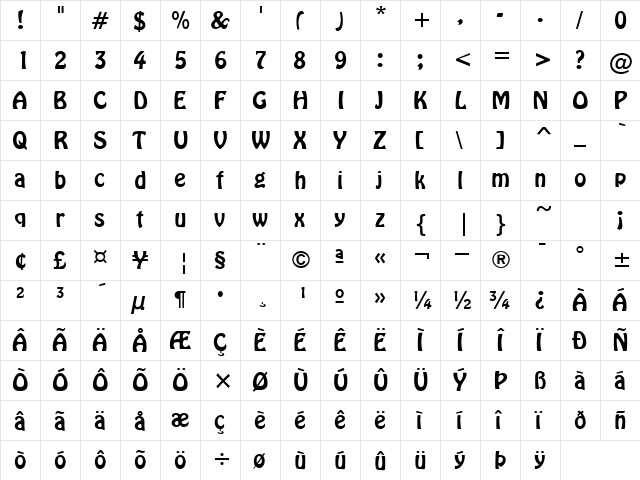
PT Freeloader Normal
Design Context for PT Freeloader Typeface
PT Freeloader offers clean, dependable letterforms without strong stylistic allegiance, making it a practical choice for designers who need flexibility.